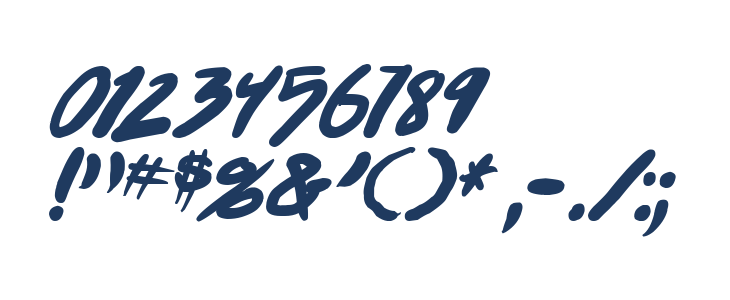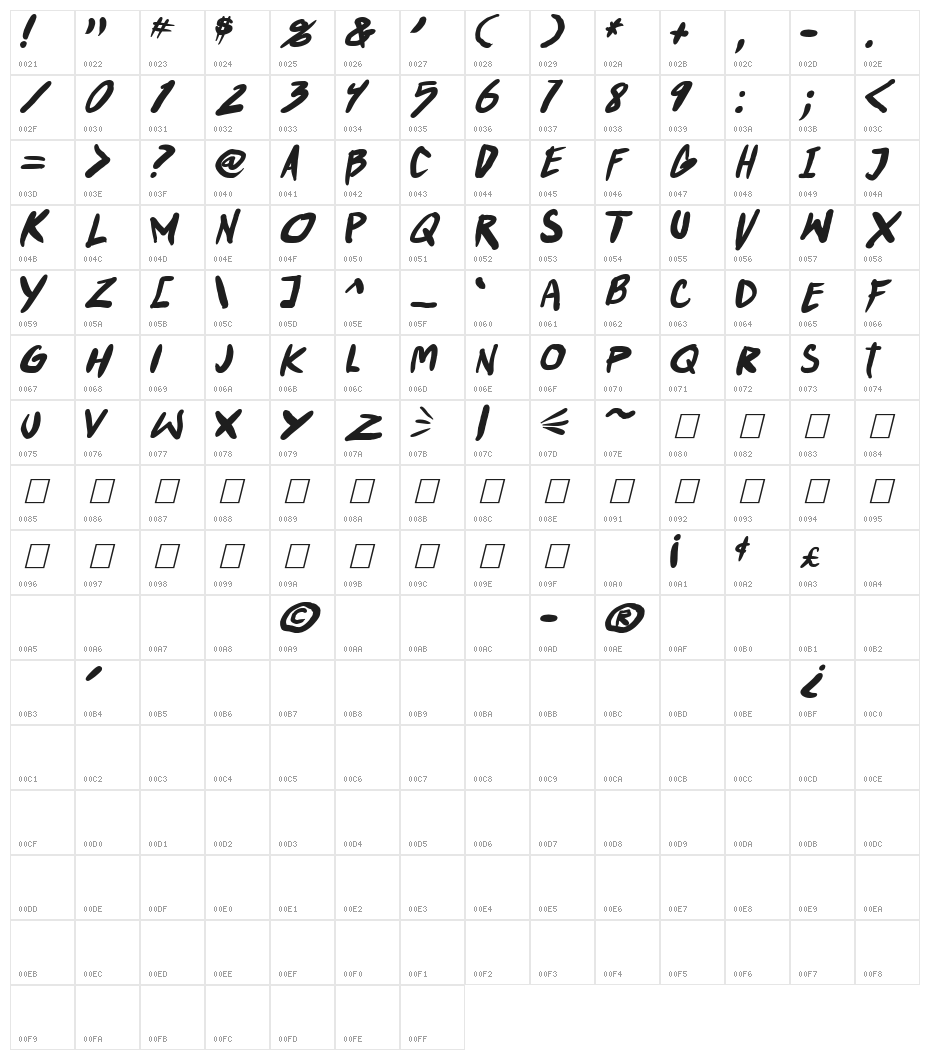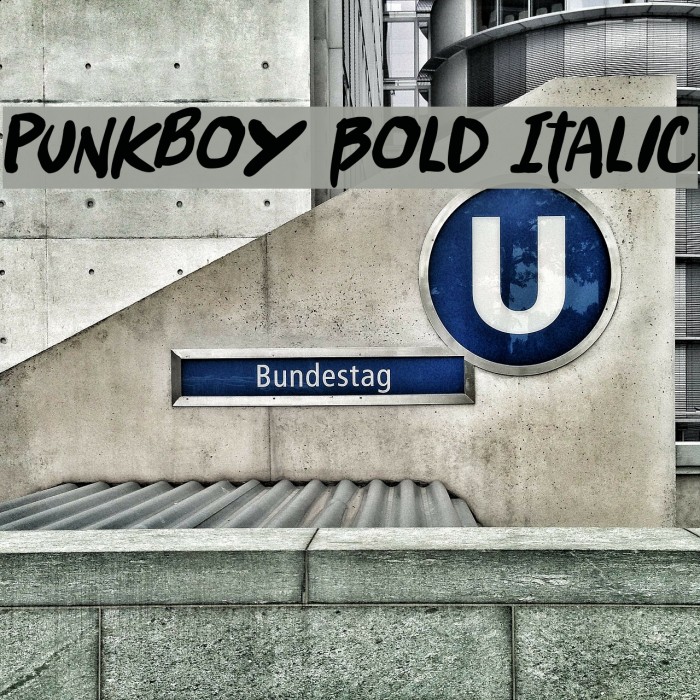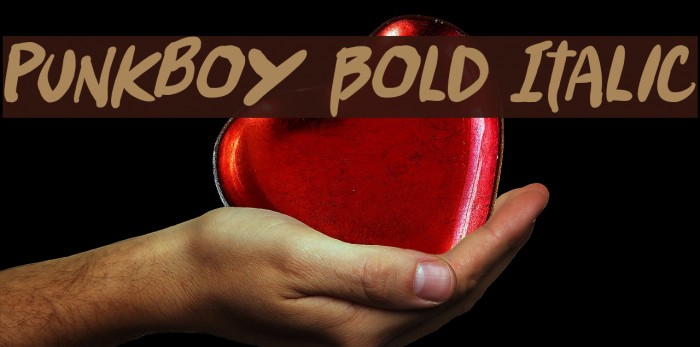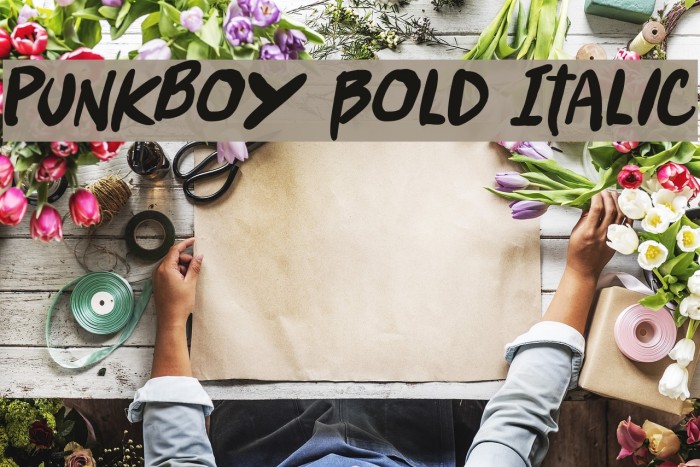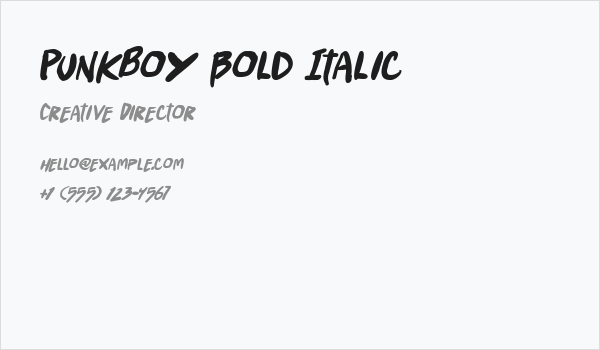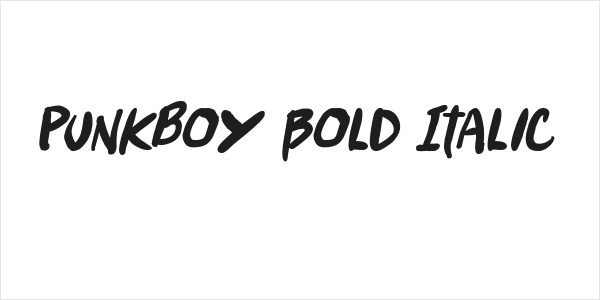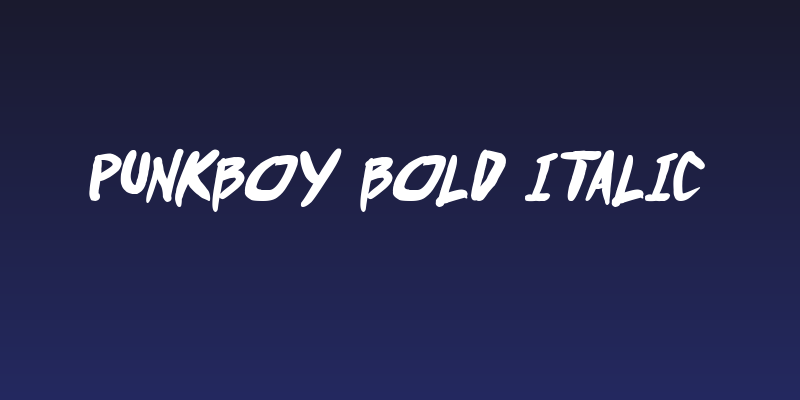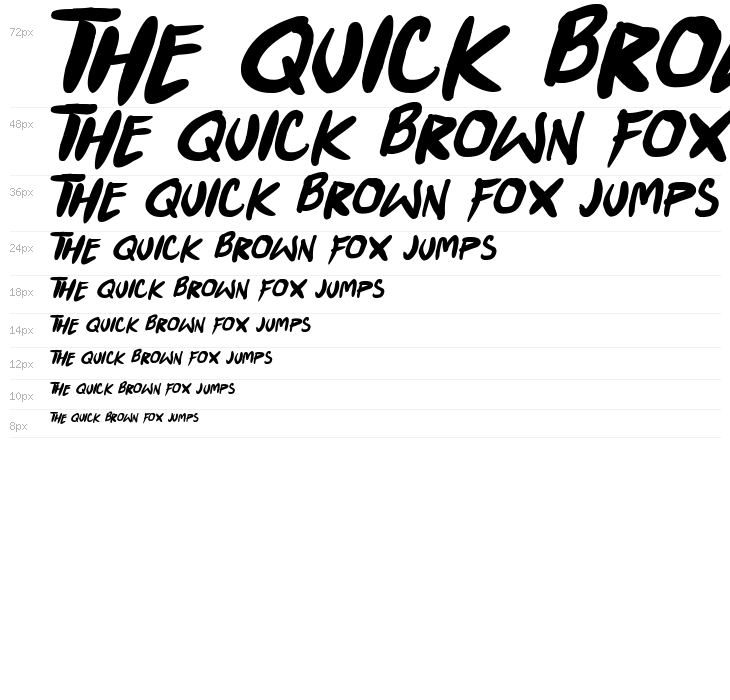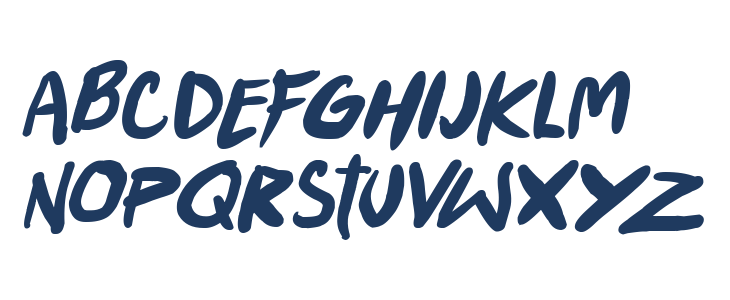
Punkboy Bold Italic Font
Punkboy Bold Italic Description
This font exudes a bold and rebellious spirit, characterized by its thick, energetic strokes and dynamic slant. The letters are crafted with a sense of urgency and movement, reminiscent of graffiti or street art. Each character is distinct, with sharp angles and a slightly irregular baseline, adding to its raw and edgy appeal. The uppercase and lowercase letters maintain a consistent style, while the numerals and special characters complement the overall aesthetic. This font is perfect for projects that require a strong, impactful visual presence.
Overall StyleModern, Urban
Proposed ProjectsIdeal for album covers, posters, streetwear branding, and any project needing a bold, rebellious touch.